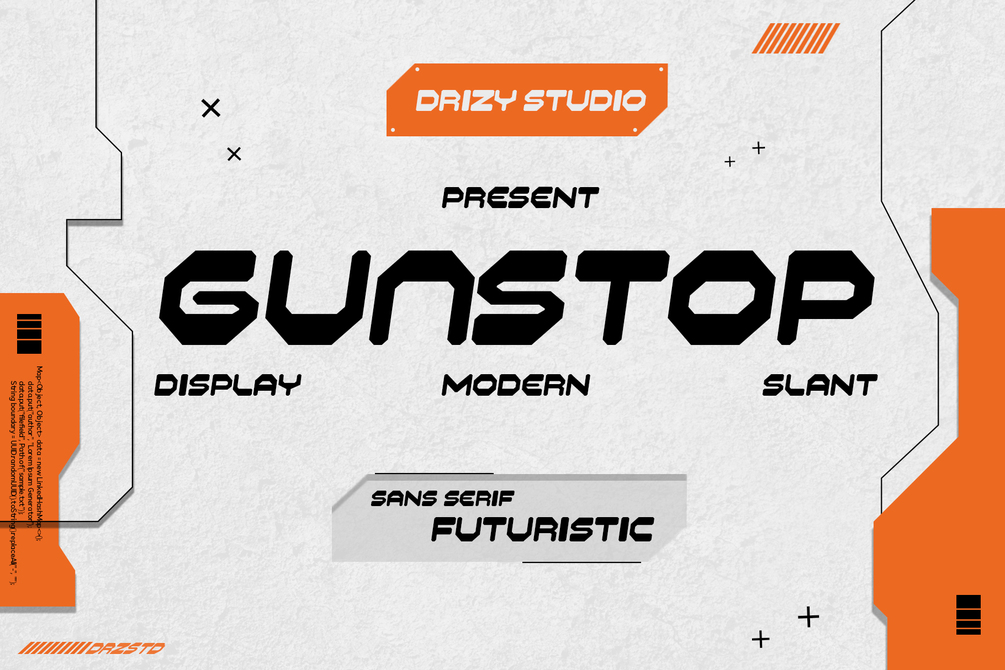
Gunstop – Sans Serif Futuristic Font
Step into the future with Gunstop – Sans Serif Futuristic Font designed with precision and style, Gunstop combines sleek, angular forms with a bold, cutting-edge aesthetic, making it the perfect choice for projects that demand a modern and techno-inspired vibe. Whether you’re crafting an eye-catching logo, designing a high-tech user interface, or creating a sci-fi poster, Gunstop delivers the versatility and impact you need to elevate your work. Its clean, geometric structure and sharp edges exude innovation, making it a standout font for everything from digital media to futuristic branding. Gunstop offers all the essential styles to suit your creative vision, ensuring your projects are not only visually captivating but also seamlessly functional. Push the boundaries of design with Gunstop and let your work lead the way into a bold, futuristic world.